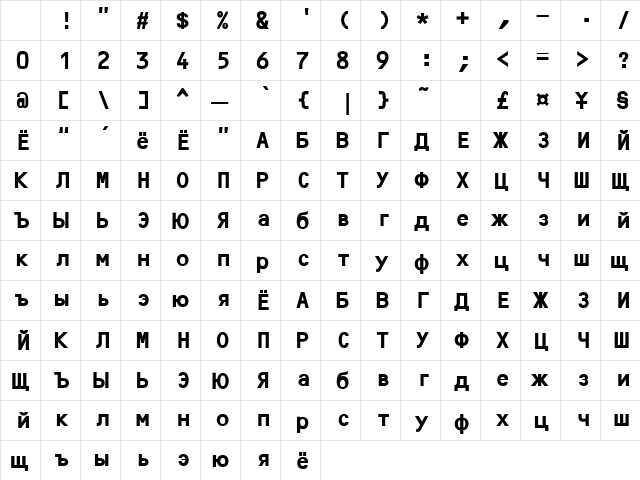
Complete OCR B Bold glyph index. Displaying only characters natively supported by OCR B Bold font.
OCR B is a composed and adaptable typeface that performs quietly and consistently across a wide range of design contexts. Its bold stroke weight gives it real presence on the page.